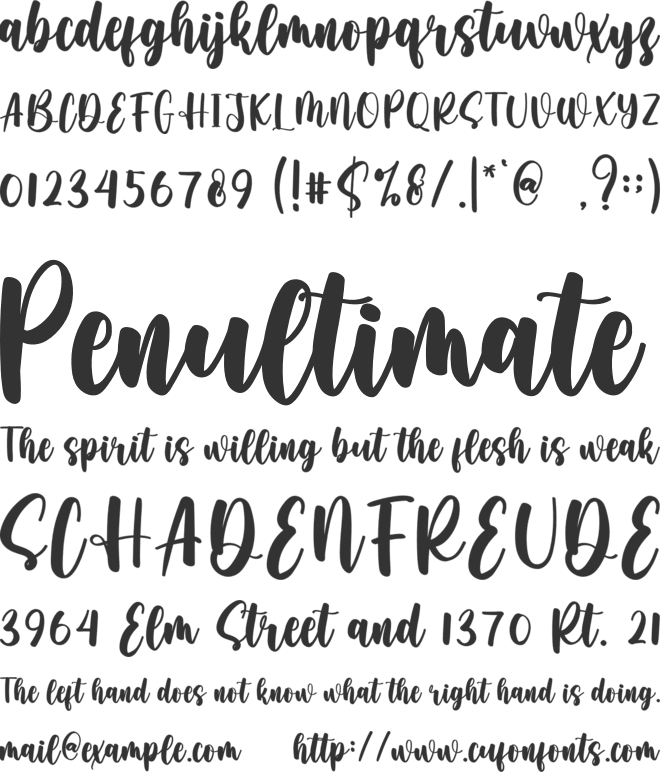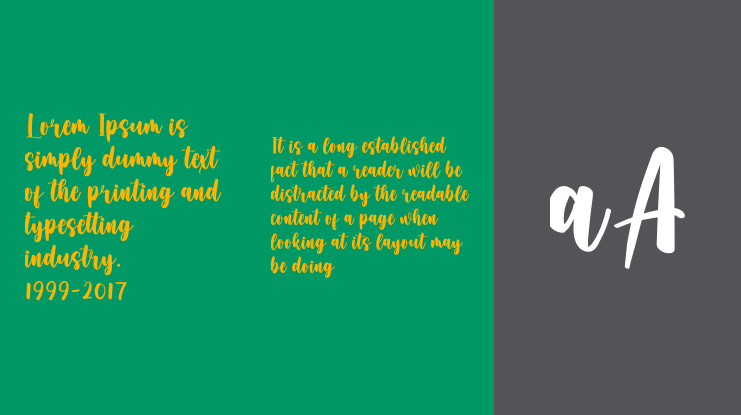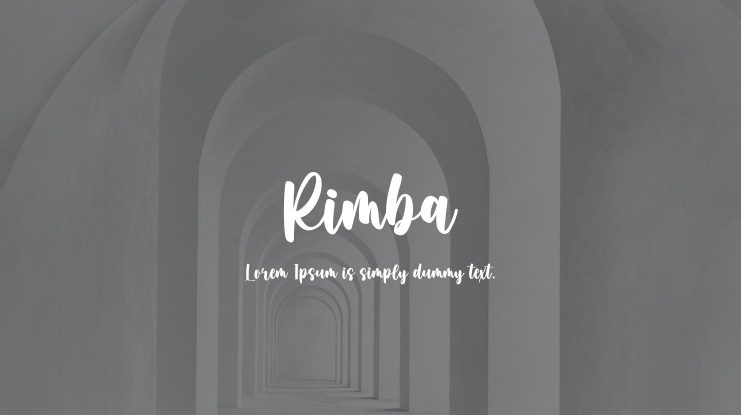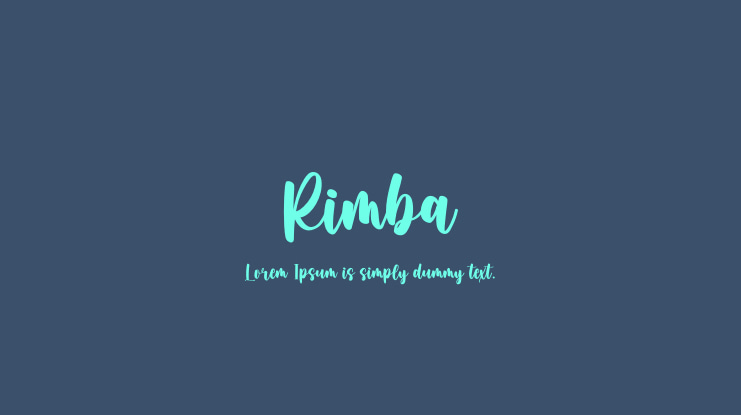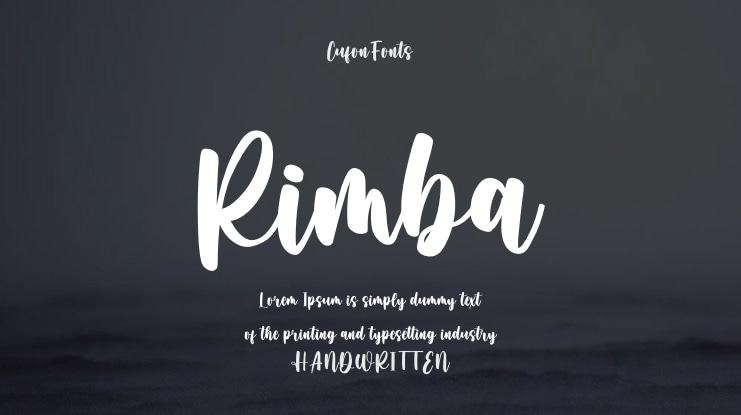
Rimba Font
DETAILSThis font retains a classy calligraphic influence while feeling contemporary and fresh. This versatility will attract a wide range of creative ideas, from letterheads and titles to stationery._________________________________________________________________________WARNING!!!By installing or using this font, you agree to the Product Use Agreement:- This font has the FULL VERSION and is for PERSONAL USE ONLY. NO COMMERCIAL USE!- If you need a CUSTOM PERMISSION or COMPANY LICENSE, please visit: https://creativewritting.com/product/61beautiful-lenttering/or click the link below: www.creativewritting.com_________________________________________________________________________Attention :It is forbidden to use this font for commercial purposes or for profit without the permission of the author / admin, without knowing that using this font without the permission of www.creativewritting.com will be penalized 5x the specified price.Every donation is greatly appreciated. Paypal account for donation:(paypal.me/masteeng99)